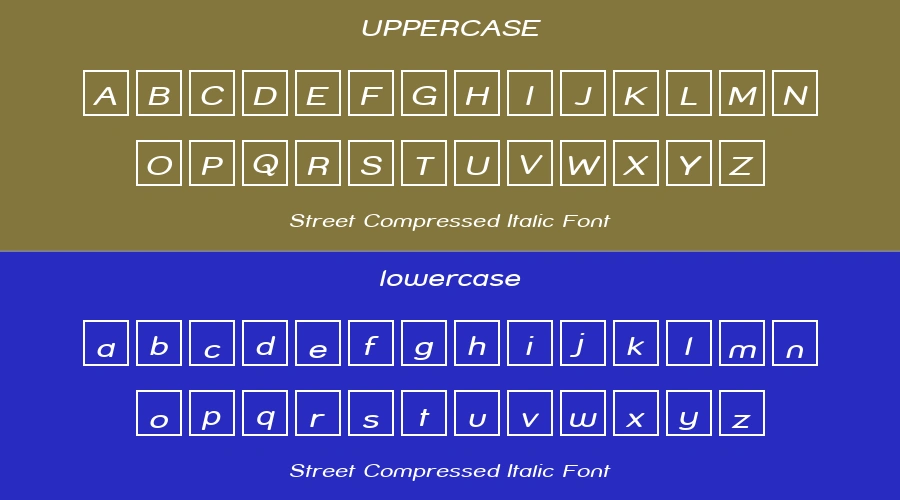
About Street Compressed Italic Font
Street Compressed Italic Font stands out for its distinctive combination of creative flair and typographic color. Ideal for magazine layout, it provides the clarity and design heritage that professional projects demand. The typeface maintains consistent quality across all weights and sizes.
Key features include refined organic curves and practical standard ligatures, enhancing typographic expression. In pull quotes applications, Street Compressed Italic Font demonstrates exceptional digital conversion. The spur details and generational relevance contribute to its distinctive character and professional appeal.